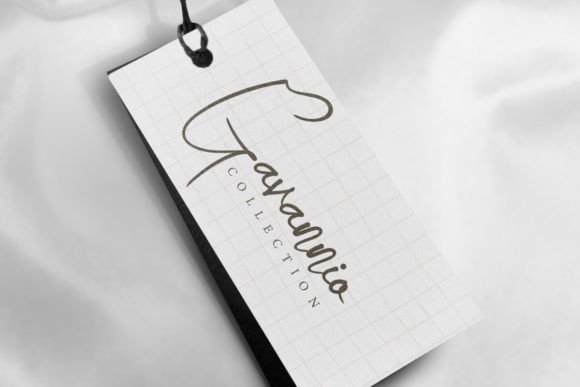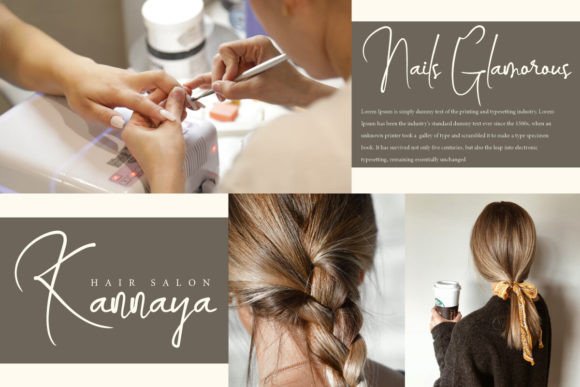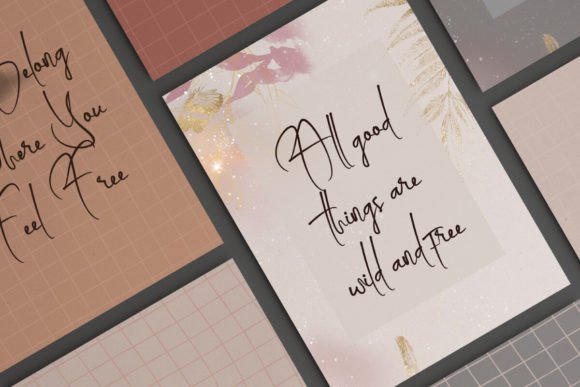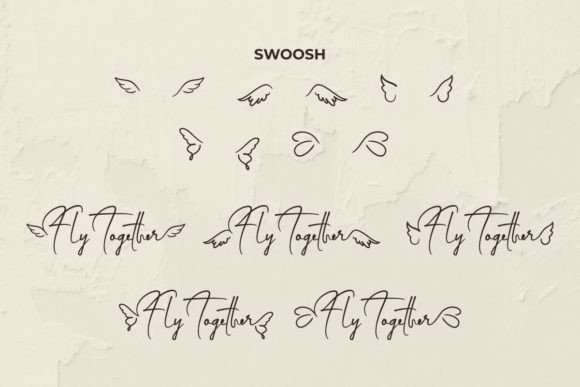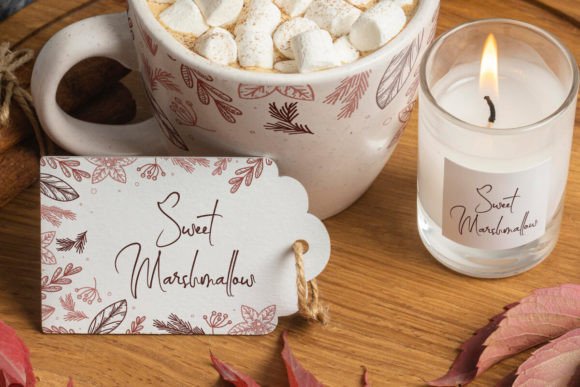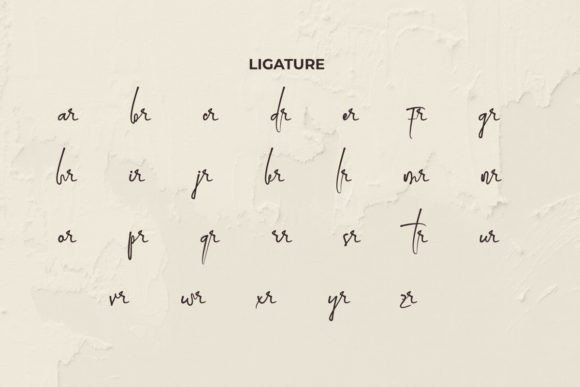
Discover the Elegance of Fly Together Font: Elevate Your Designs with Style
In the world of typography, a font can make all the difference in the success of a design project. For designers and crafters seeking a unique and stylish touch, Fly Together Font is an exceptional choice. Created by CalligraphyFonts.net, this decorative handwriting font is designed to bring a sleek and sophisticated look to various creative projects.
What Makes Fly Together Font Stand Out?
Fly Together Font boasts sleek and thin shapes that give it an authentic and modern appeal. Its unique decorative handwriting style makes it perfect for a wide range of applications, from brand logos and brochures to business cards, catalogs, headers, invitations, labels, quotes, stationery, and websites. The font’s versatility allows it to seamlessly integrate into various design projects, adding a touch of elegance and sophistication.
Perfect for Various Industries
Fly Together Font is an excellent choice for many industries that require a modern and stylish look. Some of the industries that can benefit from this font include:
• Cosmetics: Add a touch of glamour to your cosmetic brand’s packaging, advertisements, and website with Fly Together Font.
• Boutiques: Elevate your boutique’s branding with this elegant font, perfect for creating eye-catching logos, signage, and marketing materials.
• Café and Restaurants: Create a sophisticated ambiance with Fly Together Font, ideal for menus, flyers, and website designs.
• Furniture and Homeware: Bring a touch of modern style to your furniture and homeware brand’s marketing materials, such as brochures, catalogs, and website.
• Handicrafts and Salons: Showcase your unique products or services with Fly Together Font, perfect for creating visually appealing branding and marketing materials.
• Publishing: Add a touch of elegance to your book covers, magazines, and other published materials with this beautiful font.
Aesthetically Pleasing and Legible
Fly Together Font is not only visually stunning but also presents excellent legibility, making it perfect for use as a primary text font or in combination with other types of fonts. Its unique style and sleek shapes ensure that your message is conveyed with clarity and sophistication, making it an excellent choice for designers and crafters.
Why Choose Fly Together Font?
With Fly Together Font, you can:
• Elevate your designs: Add a touch of elegance and sophistication to your creative projects.
• Stand out from the crowd: Unique and stylish, Fly Together Font will set your designs apart from the rest.
• Enhance brand identity: Create a consistent and professional look for your brand with this high-quality font.
• Increase versatility: Use Fly Together Font across various design projects, from print to digital media.
Fly Together Font is an exceptional decorative handwriting font that offers a unique and stylish touch to various design projects. Its sleek and thin shapes, combined with its excellent legibility, make it perfect for designers and crafters seeking to elevate their designs. With its versatility and wide range of applications, Fly Together Font is an excellent choice for anyone looking to add a touch of elegance and sophistication to their creative projects.